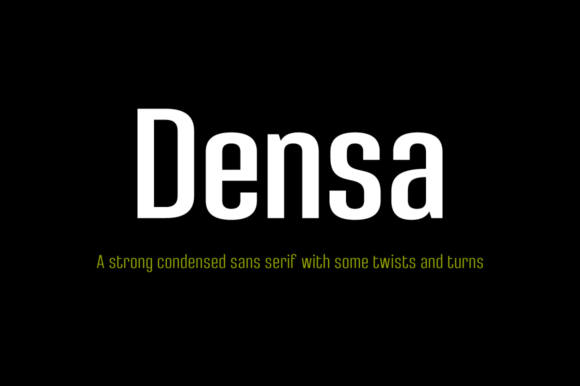
Unleash the Densa Family Font: A Condensed Sans Serif Masterpiece for Visual Impact
In a world saturated with digital noise, it's crucial to make a strong visual impression that captivates and engages your audience. Enter the Densa Family Font, a condensed sans serif masterpiece crafted by the renowned Graviton Font Foundry. This extraordinary typeface is designed to turn heads, leaving a lasting impact on your creative endeavors.
Densa's condensed design is not just a space-saving solution; it's an artistic statement that adds a touch of sophistication and elegance to your designs. Its unconventional display endings break the mold of traditional fonts, offering a unique and eye-catching aesthetic that sets your work apart.
This versatile font family is not limited to headlines and short text blocks. Its diverse range of eight styles, each equipped with small caps and extensive language support, makes Densa suitable for a wide variety of projects. From logos and branding to packaging and posters, Densa effortlessly adapts to your creative vision.
But Densa is more than just a tool; it's an extension of your creative expression. Its condensed structure allows for maximum impact in limited spaces, making it ideal for capturing attention in busy digital landscapes. Its display features, including unconventional endings, add a touch of intrigue and personality to your designs, ensuring they stand out from the crowd.
Whether you're a seasoned designer or just starting your creative journey, the Densa Family Font is your perfect companion. Its user-friendly interface and comprehensive features make it accessible to all skill levels, while its captivating aesthetic elevates your work to new heights.
Embrace the power of Densa and embark on a journey of visual storytelling. Let your words dance with elegance, your logos radiate with personality, and your posters captivate the imagination. Discover the endless possibilities of Densa and transform your creative vision into a stunning reality.